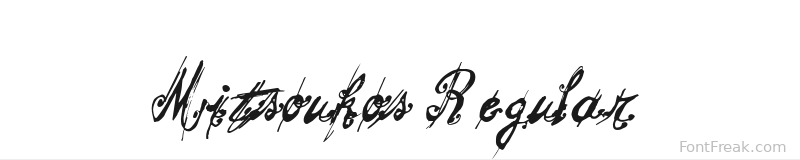
Mitsoukos Regular
Mitsoukos Regular is a distinctive display font designed by Cloutierfontes, showcasing a unique blend of elegance and artistic flair. This handwritten style features fluid strokes that give it a dynamic and personal touch, making it an ideal choice for projects that require a creative and expressive typography. The font exhibits a moderate stroke weight with varying contrast, lending it an organic feel that captures attention without overwhelming the viewer. The spacing is thoughtfully crafted to enhance readability while maintaining its artistic integrity.
This font is particularly well-suited for a variety of creative applications. It shines in wedding invitations, where its romantic and whimsical character can set the tone for special occasions. Additionally, it is perfect for movie posters, allowing for a striking visual impact that draws the audience’s eye. Restaurant menus can benefit from Mitsoukos Regular by adding a touch of sophistication, making the dining experience feel more upscale. Furthermore, it is also an excellent choice for branding projects, such as logos and packaging, where a unique personality is essential to stand out in competitive markets.
Targeted primarily at graphic designers, small business owners, and content creators, Mitsoukos Regular offers a versatile option that can elevate any design. Its freeware license ensures that it is accessible to all, allowing users to incorporate this unique typographical style into their projects without financial constraints.
In conclusion, Mitsoukos Regular stands out due to its artistic elegance and versatility, making it a valuable addition to any designer’s toolkit. For those seeking to make a statement, the Mitsoukos Regular font free download provides an opportunity to enhance creative projects with a distinctive and memorable typeface.